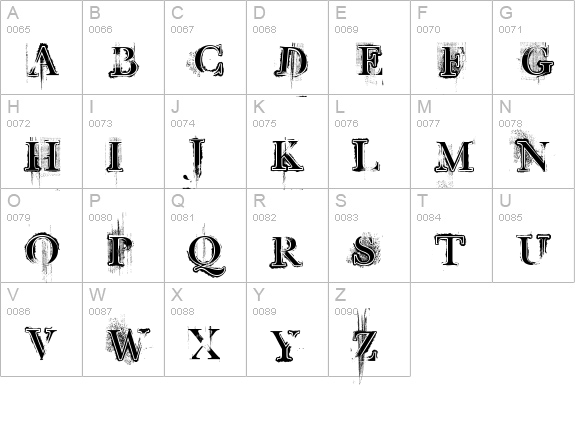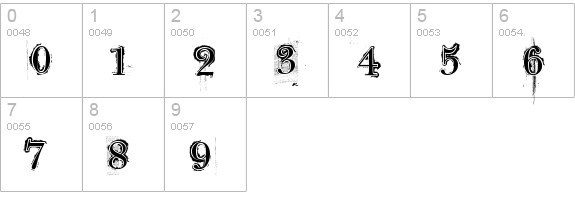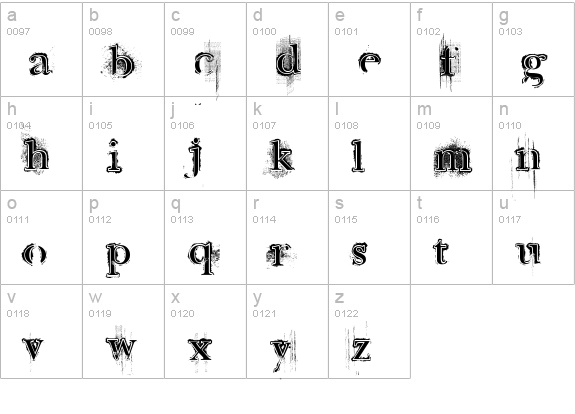
Retro Rock Poster Font Details
Introducing Retro Rock Poster font, a stunning and captivating typeface that perfectly captures the essence of vintage rock and roll. This font is the epitome of nostalgia, taking you back to the golden era of music and creating a sense of excitement and energy. Retro Rock Poster font is a perfect blend of boldness and creativity, making it the ideal choice for any design project that requires a touch of retro charm. Its unique and eye-catching letterforms will instantly grab attention and add a sense of personality to your artwork. What sets Retro Rock Poster font apart is not only its impeccable design, but also its accessibility. It is freely available to download at FontsMarket.com, making it a valuable resource for designers, creatives, and enthusiasts alike. With just a few clicks, you can infuse your projects with the timeless allure of this vintage-inspired font. Whether you're working on a music festival poster, album cover, or any other retro-themed design, Retro Rock Poster font is a must-have. Its versatility allows it to shine in various contexts, giving your creations that extra edge that will make them stand out from the crowd. With Retro Rock Poster font, you can effortlessly channel the rebellious spirit of rock and roll while maintaining a sense of authenticity. Its carefully crafted details and dynamic letterforms will transport your audience back in time, evoking a sense of nostalgia and fun. So, why wait? Embrace the free-spirited nature of Retro Rock Poster font and let it become an integral part of your design toolbox. Download it today at FontsMarket.com and unlock a world of endless possibilities for your creative endeavors. Get ready to rock and roll with this stunning typeface and make a bold statement that echoes the spirit of a bygone era.